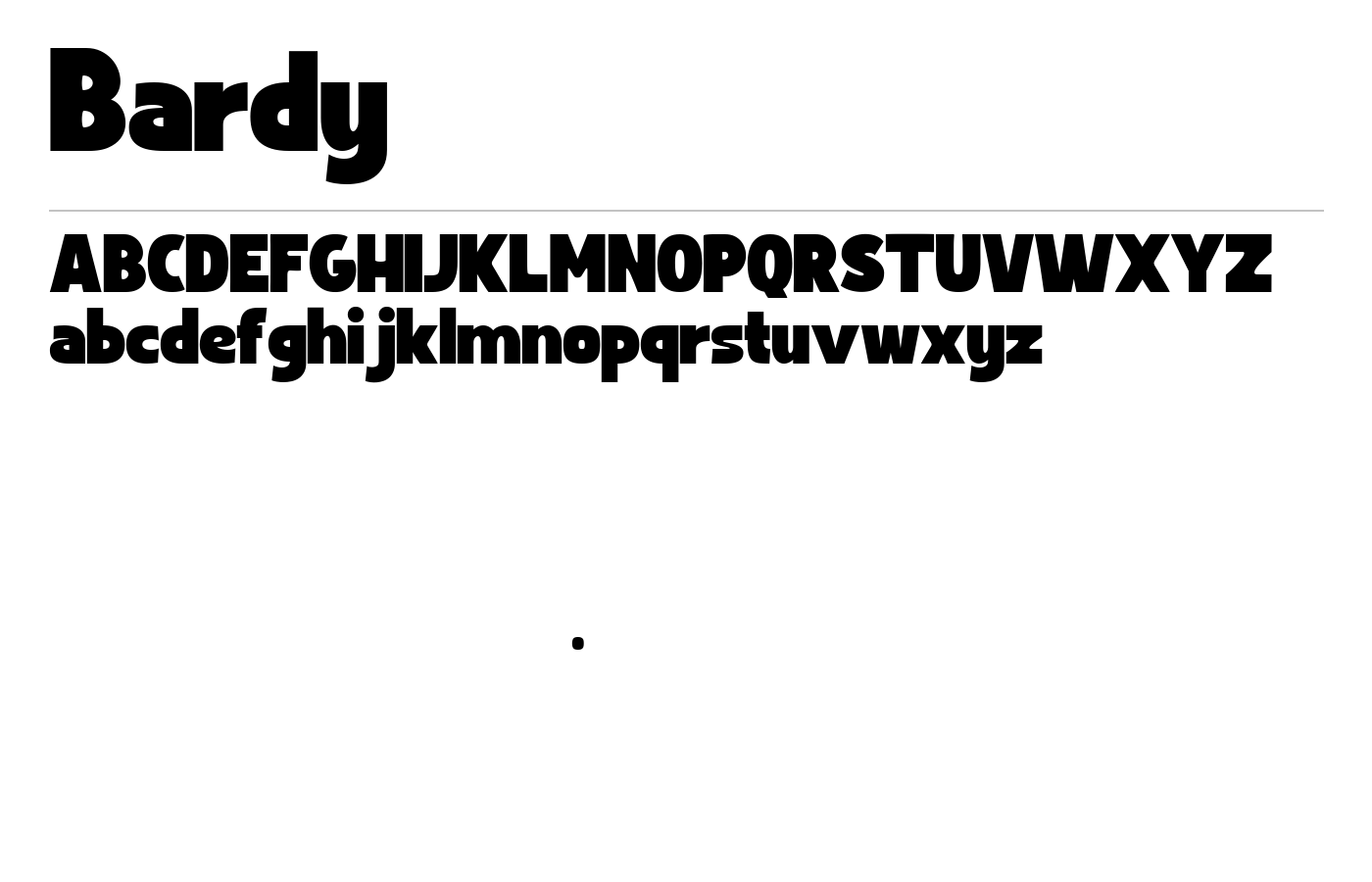
Bardy is a bold, geometric sans serif font with strong, blocky letterforms and a slightly condensed width that gives it a powerful presence. Its high x-height and uniform stroke weight make it highly legible and impactful, ideal for striking headlines and branding that demands attention. This font conveys confidence and modernity, fitting well in editorial designs, posters, and logos where a bold and contemporary look is desired.
Bardy Font
About Bardy Font